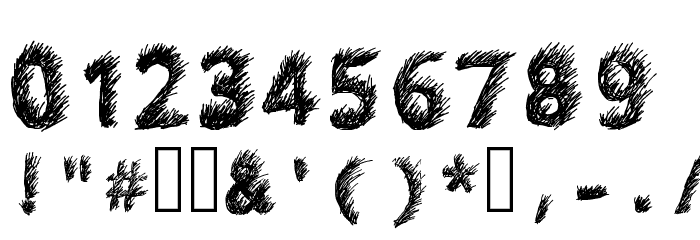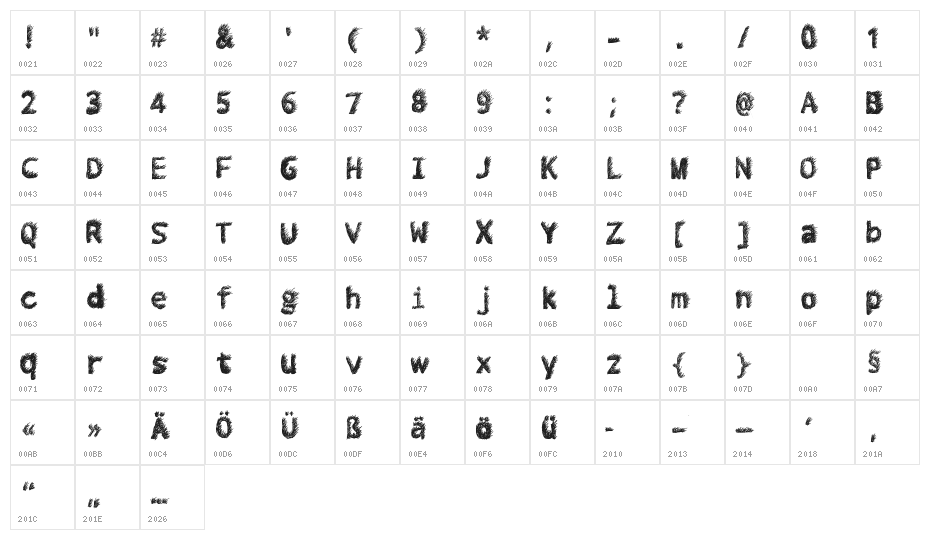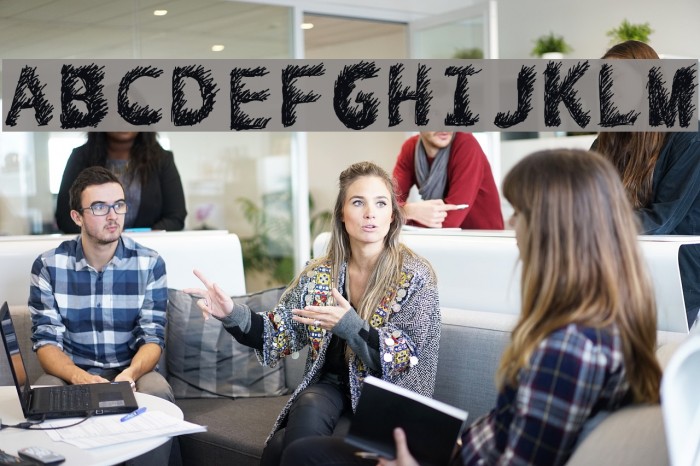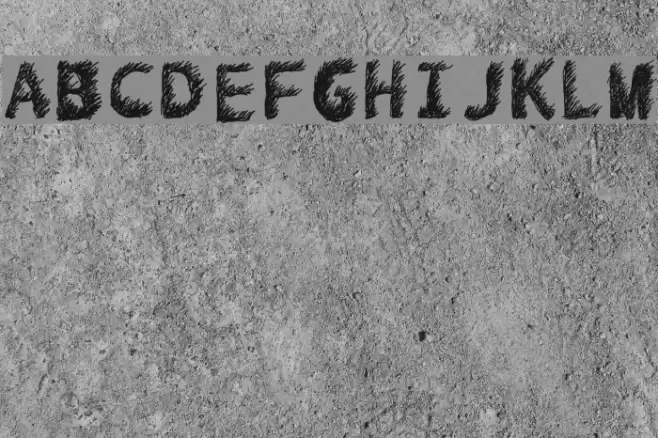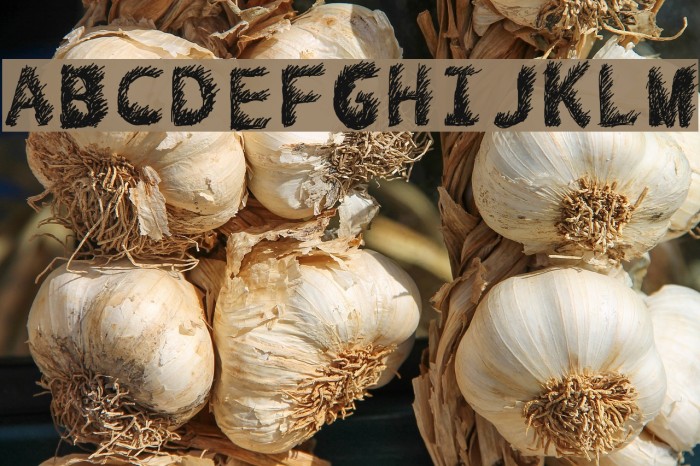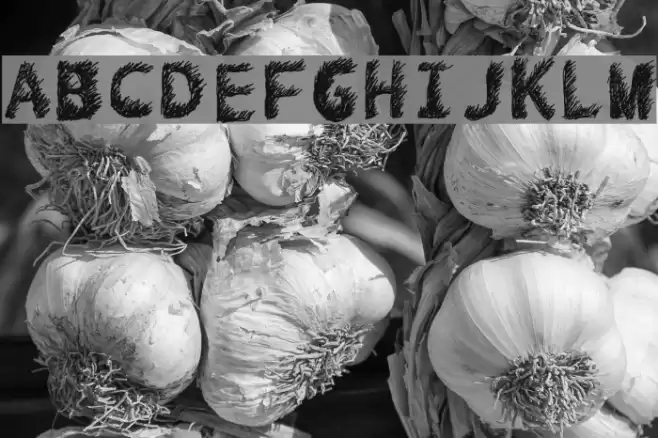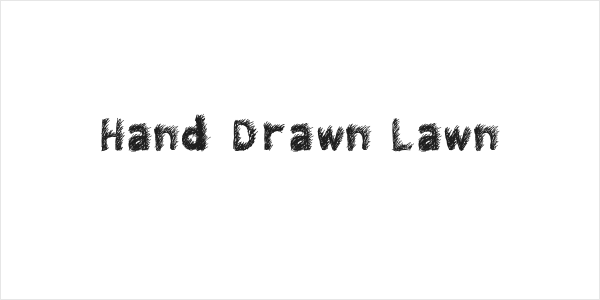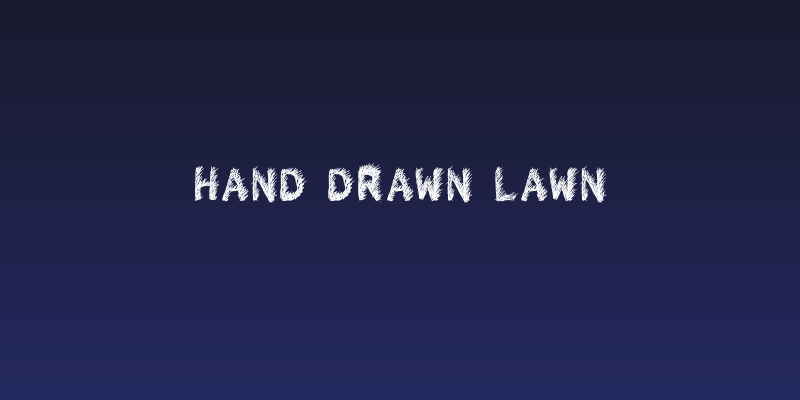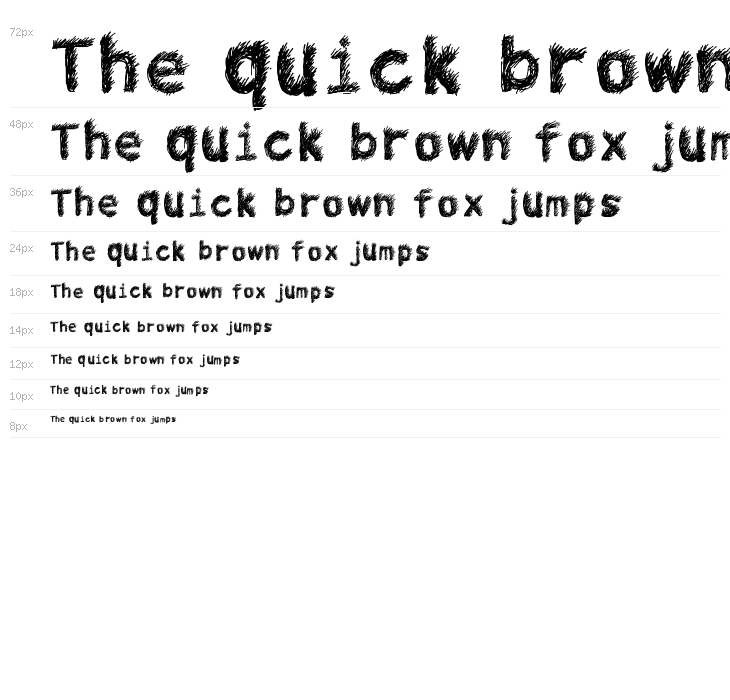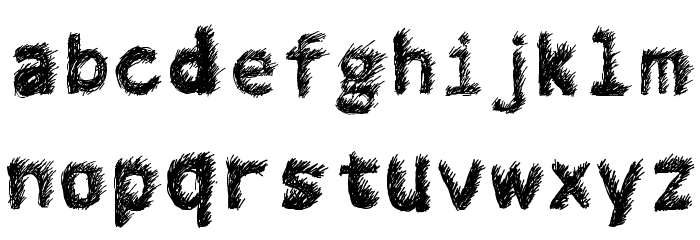
Hand Drawn Lawn Font
Hand Drawn Lawn Description
This font features a unique, hand-drawn aesthetic that mimics the texture of grass or scribbles. Each character is crafted with uneven, jagged edges, giving it a playful and organic feel. The strokes are bold and dense, creating a strong visual impact. Despite its rough appearance, the font maintains good legibility, making it suitable for creative and informal projects. The uppercase and lowercase letters are consistent in style, with numbers and special characters following the same design principles. This font is ideal for projects that require a touch of whimsy and creativity.
| Proposed Projects | Perfect for children's book covers, playful posters, creative branding, and artistic invitations. |